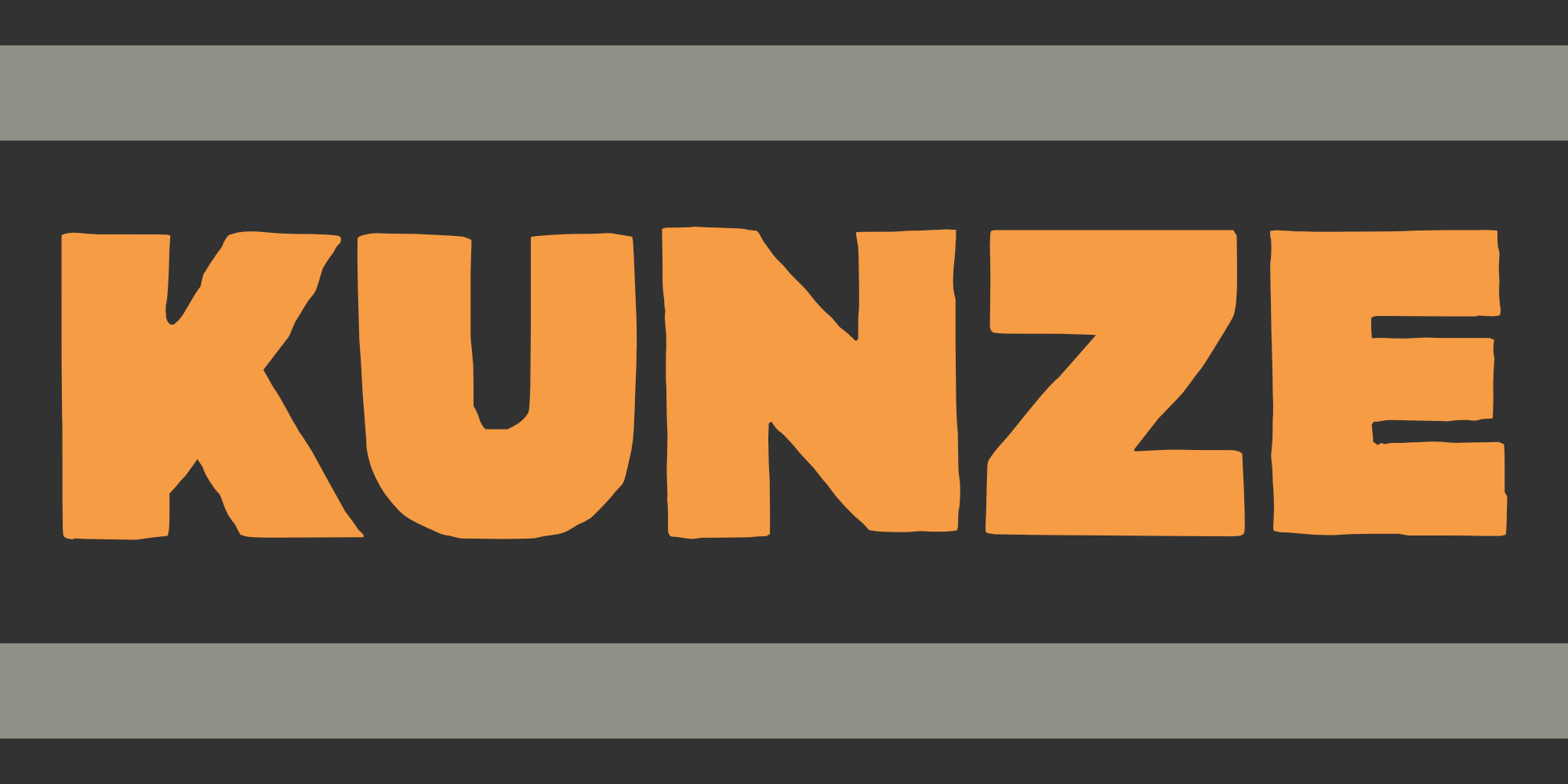
Kunze Font is perfect for artistic creative branding, contemporary design studios, innovative cultural projects, modern art gallery communications, creative workshop promotions, artistic portfolio presentations, experimental design campaigns, and sophisticated creative expressions. This distinctive typeface excels in applications requiring artistic sophistication and creative innovation that captures the essence of contemporary art and design excellence through refined visual character and creative authenticity.
What makes Kunze Font exciting is its artistic sophistication that perfectly captures the essence of contemporary creative expression and design innovation through thoughtfully crafted letterforms. The font features refined character construction with artistic flair and creative proportions that instantly conveys themes of creativity, innovation, and artistic excellence perfect for brands celebrating creative craftsmanship and contemporary artistic expression in cultural markets.
The Kunze Font family includes creative weights and artistic variations with contemporary styling elements, offering designers comprehensive tools for creating sophisticated artistic compositions. The family provides consistent creative aesthetic with varying artistic intensity for versatile cultural communications and creative branding projects requiring genuine artistic character and contemporary design appeal.
The artistically crafted letterforms of Kunze Font ensure excellent readability while maximizing creative charm and artistic sophistication, making it ideal for art gallery marketing, creative studio communications, and contemporary cultural presentations. This refined typeface combines artistic heritage with modern technical standards for outstanding performance in contemporary design environments requiring authentic creative character and sophisticated artistic presence.